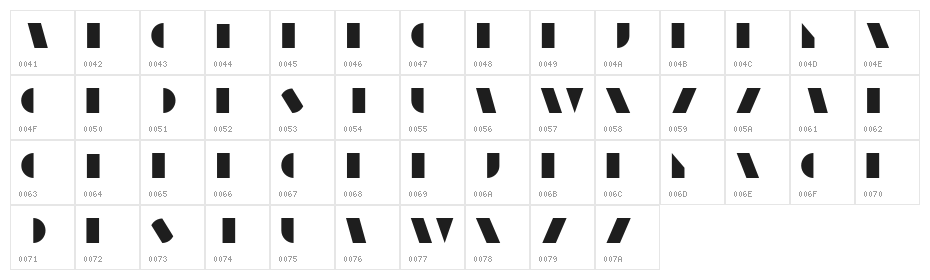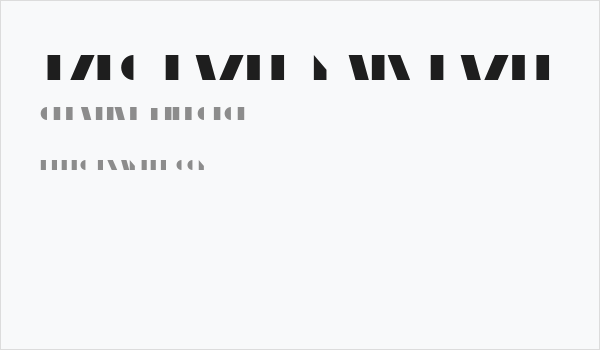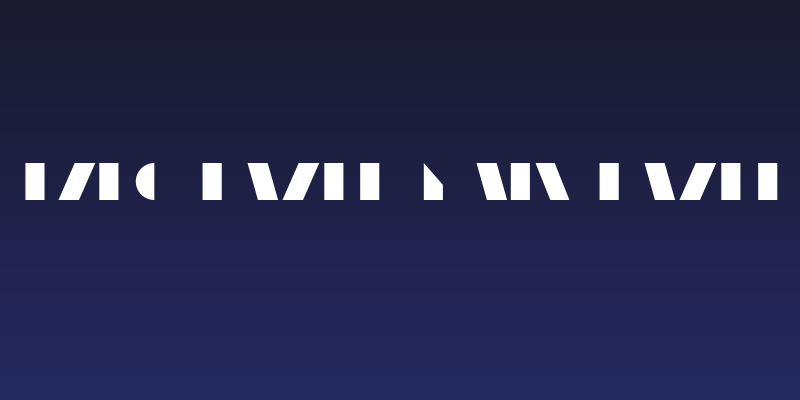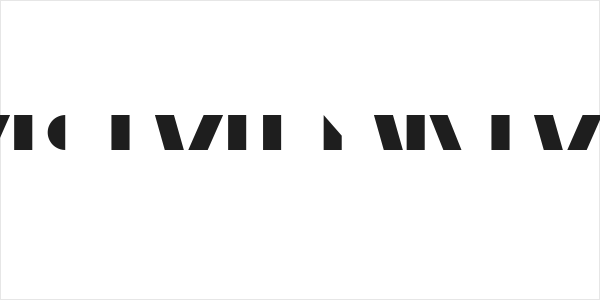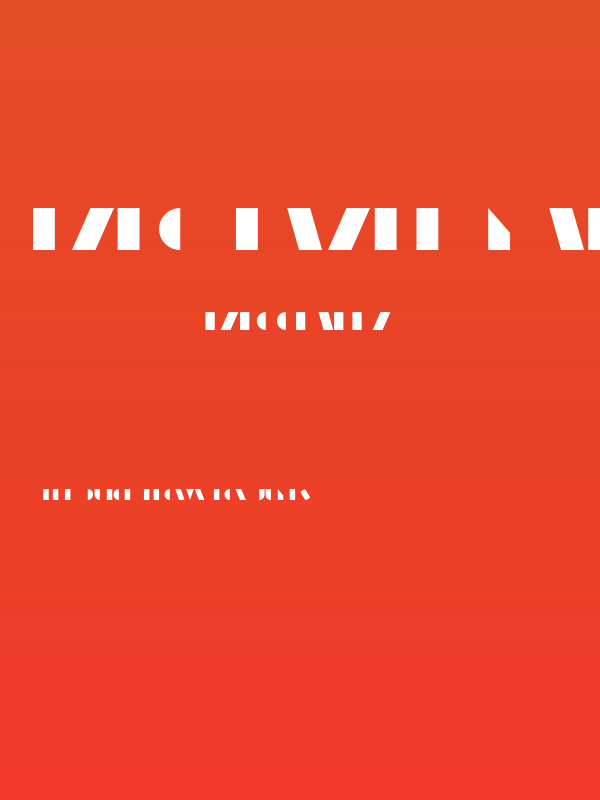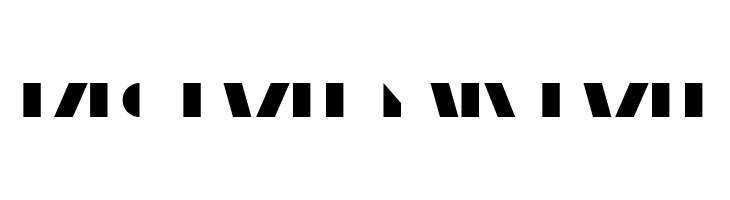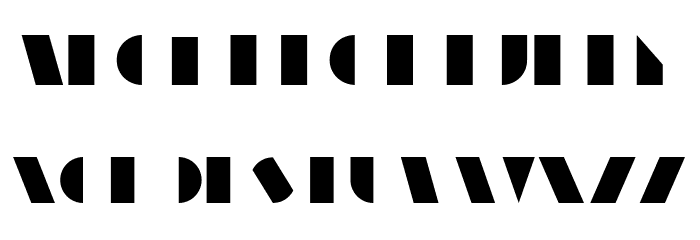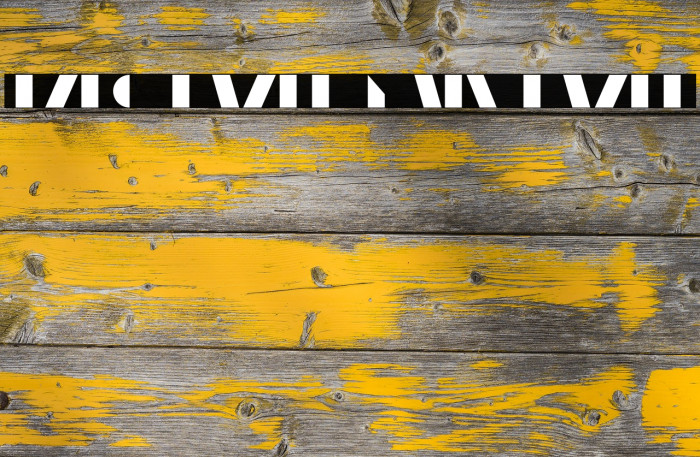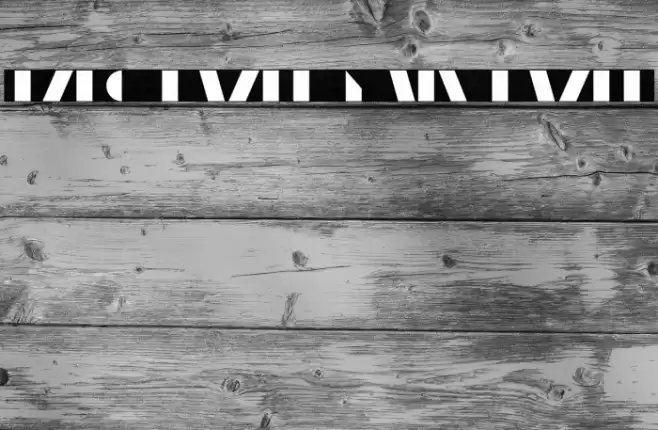
✎ Futuristic
This font features a bold, geometric design with a strong emphasis on angular shapes and sharp edges. Each character is constructed using a combination of straight lines and precise curves, creating a modern and futuristic appearance. The uppercase letters are particularly striking, with a uniform height and width that contribute to a cohesive and structured look. The lowercase letters maintain the same geometric style, ensuring consistency throughout the typeface. Numbers and special characters are designed to match the bold and angular aesthetic, making this font ideal for projects that require a contemporary and eye-catching typeface.